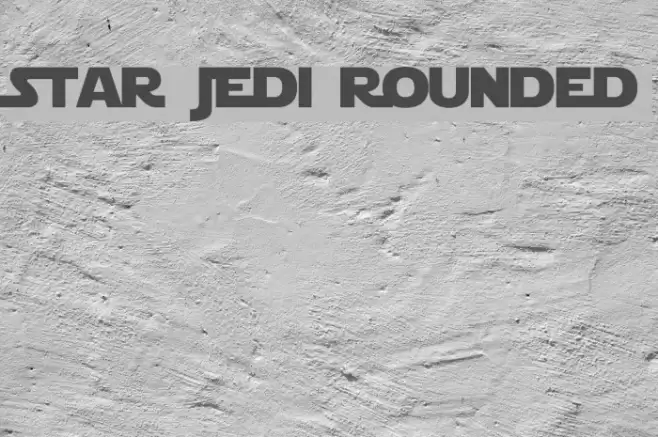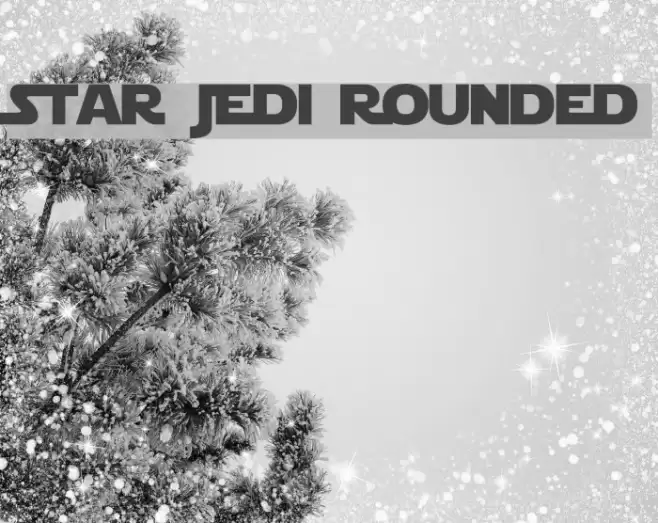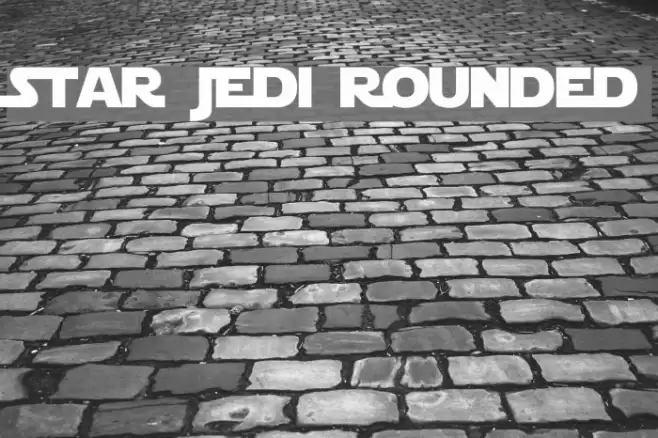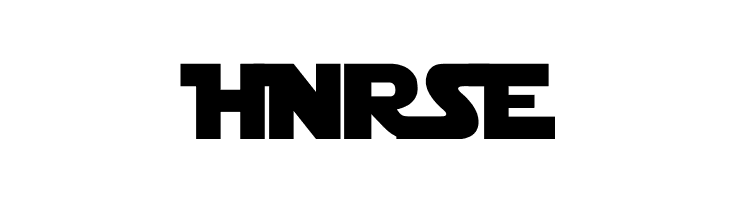
Star Jedi Rounded Font
Star Jedi Rounded Description
This font features a bold, futuristic design with rounded edges and a distinct sci-fi aesthetic. The characters are wide and have a strong presence, making them ideal for attention-grabbing headlines or titles. The uppercase letters are particularly striking, with unique angular cuts and curves that give them a dynamic, energetic feel. The numbers and special characters maintain this bold style, ensuring consistency across all text elements. The font's design is reminiscent of classic science fiction themes, making it perfect for projects that require a touch of the extraordinary or otherworldly.
A bold, futuristic font with rounded edges and a sci-fi aesthetic from Uncategorized fonts.
- Proposed Projects: Ideal for movie posters, video game titles, sci-fi book covers, and themed event invitations.
- Width: Expanded
- Overall Style: Futuristic